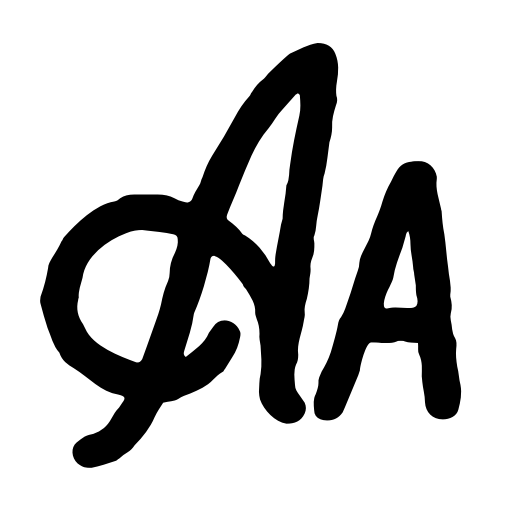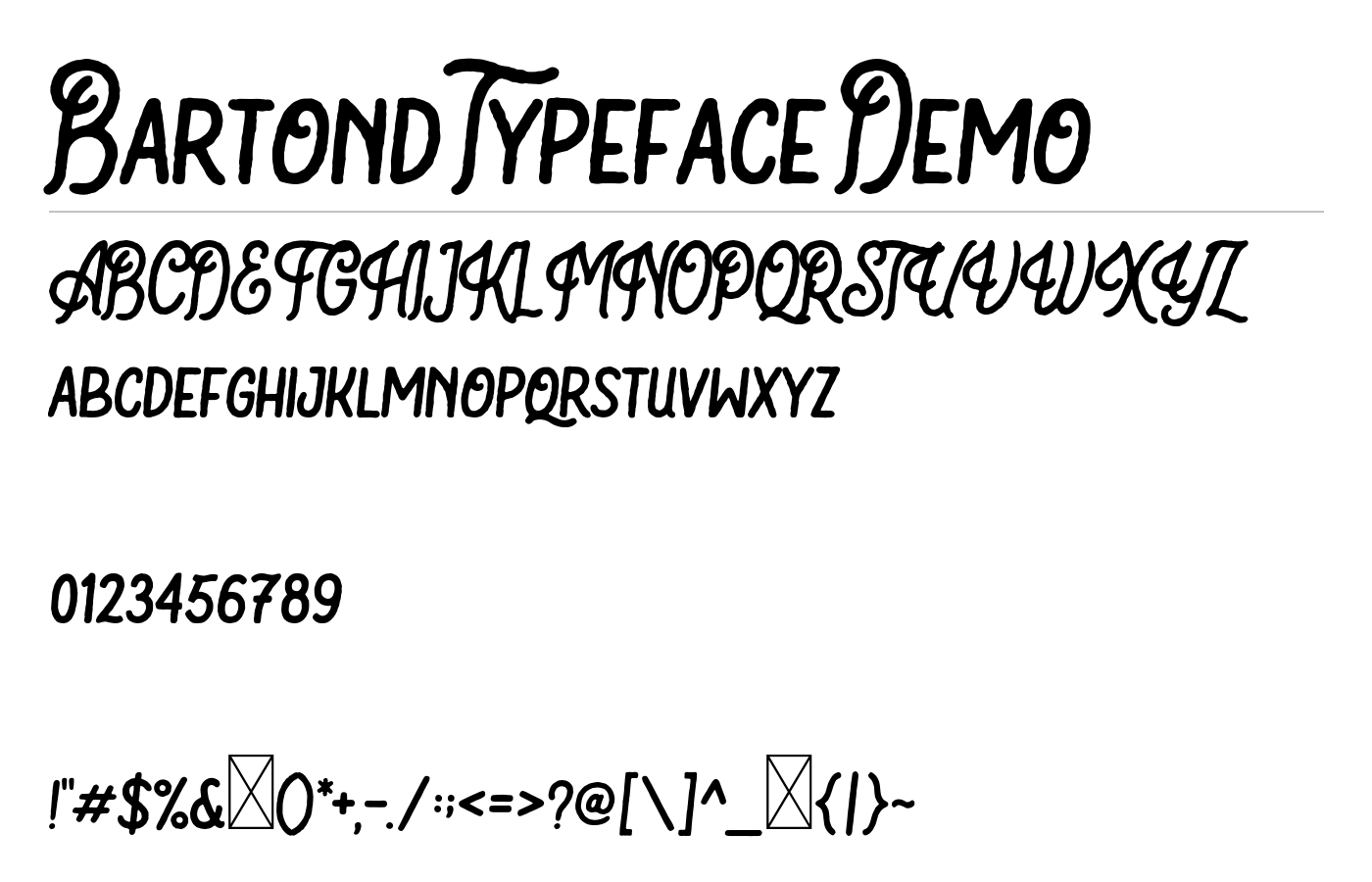
Bartond Typeface Demo Font is a playful and distinctive sans serif with a hand-drawn, brush-like texture that adds personality and charm. Its bold, slightly condensed letterforms and unique, curly uppercase letters give it an artistic, informal feel ideal for creative branding, logos, and eye-catching headlines. This font works well where a friendly yet confident tone is desired, making it perfect for boutique packaging, casual editorial designs, and expressive web graphics.
Bartond Typeface Demo Font
About Bartond Typeface Demo Font